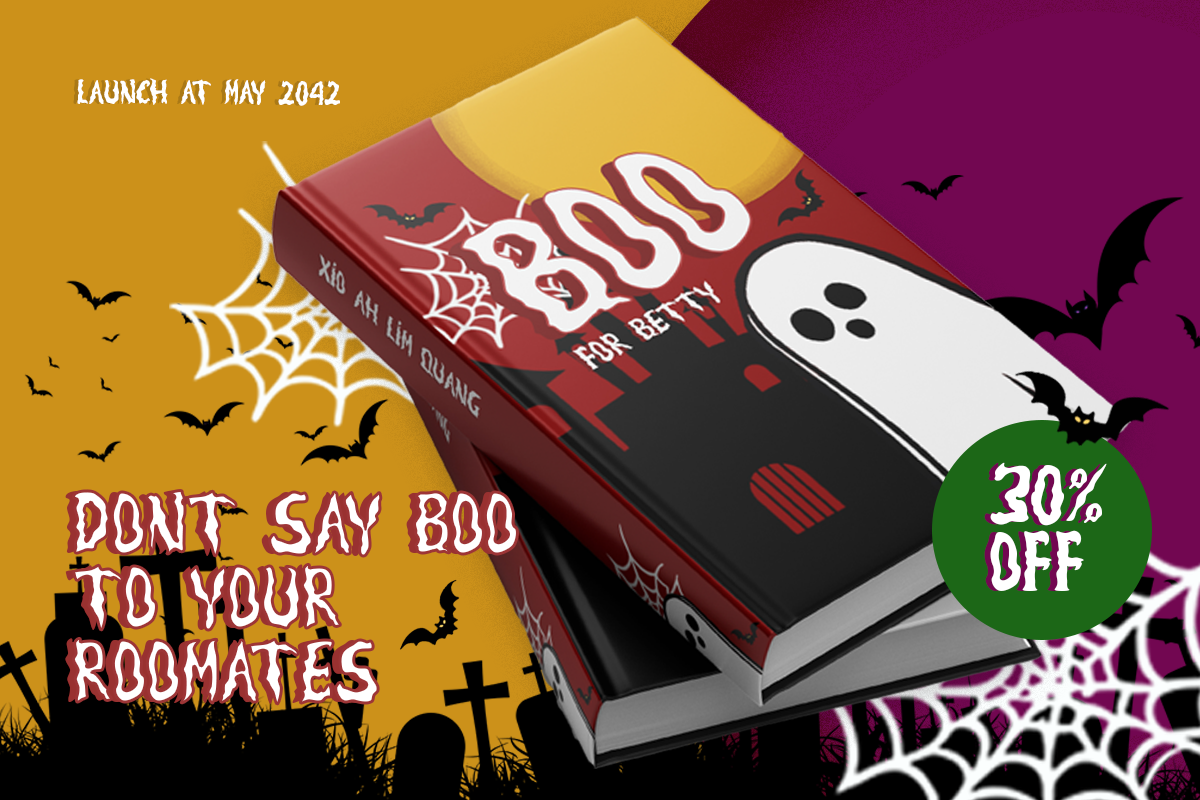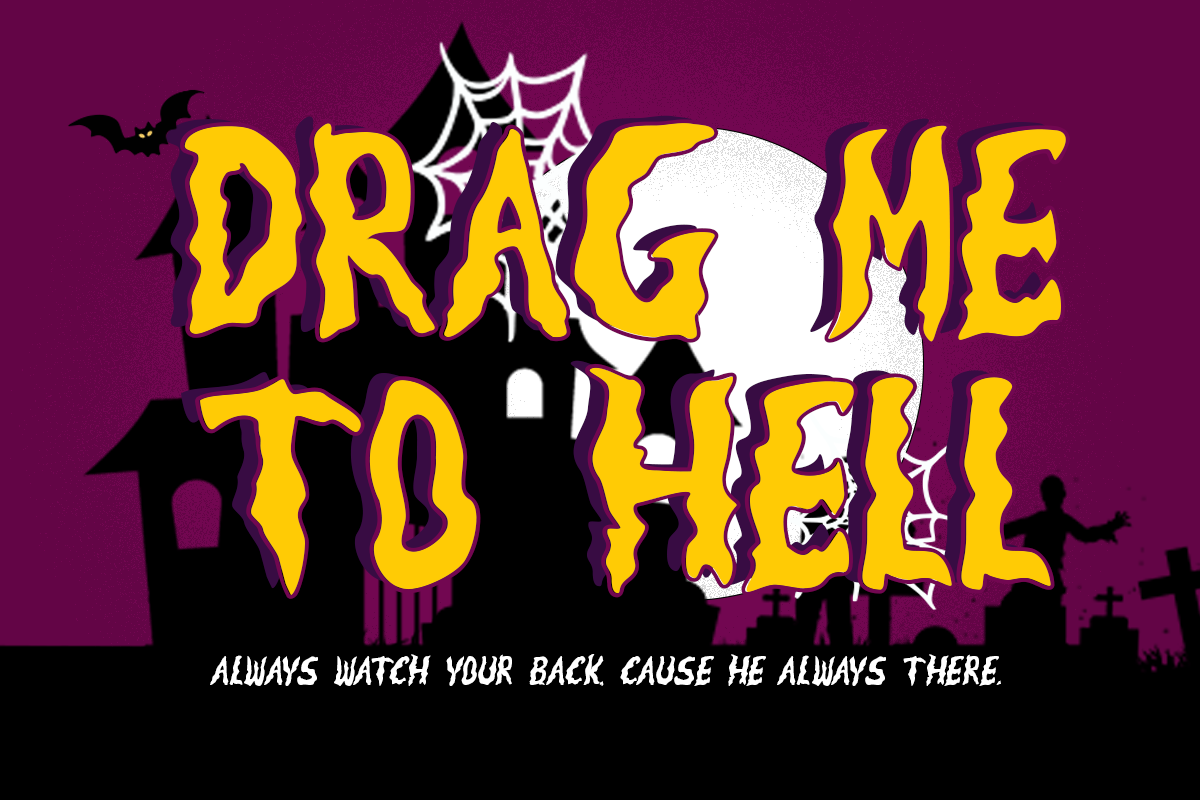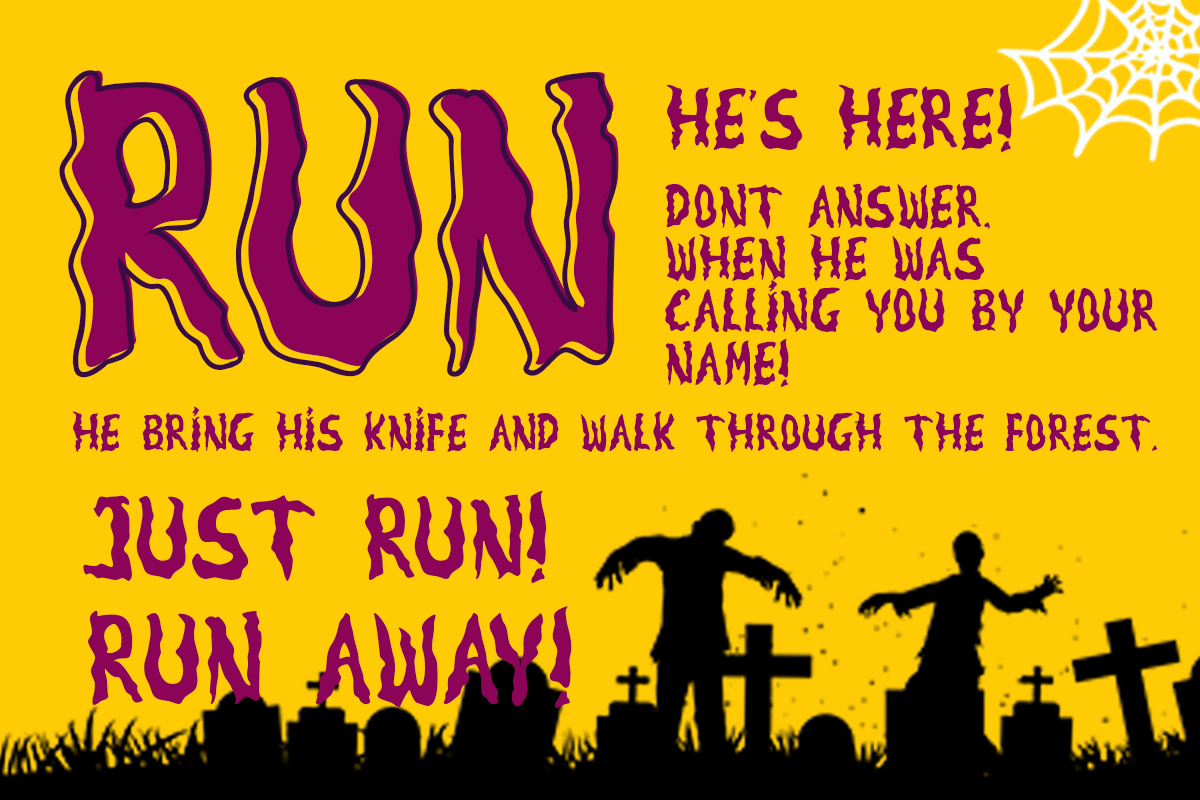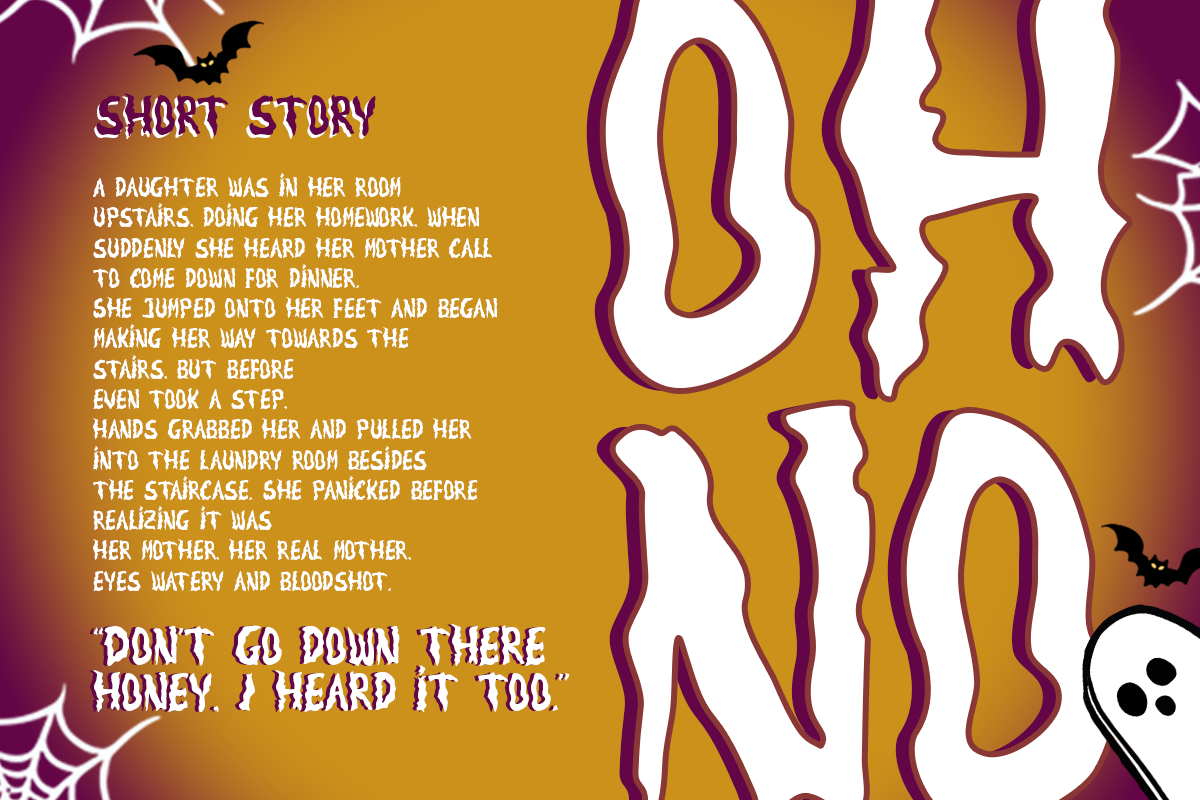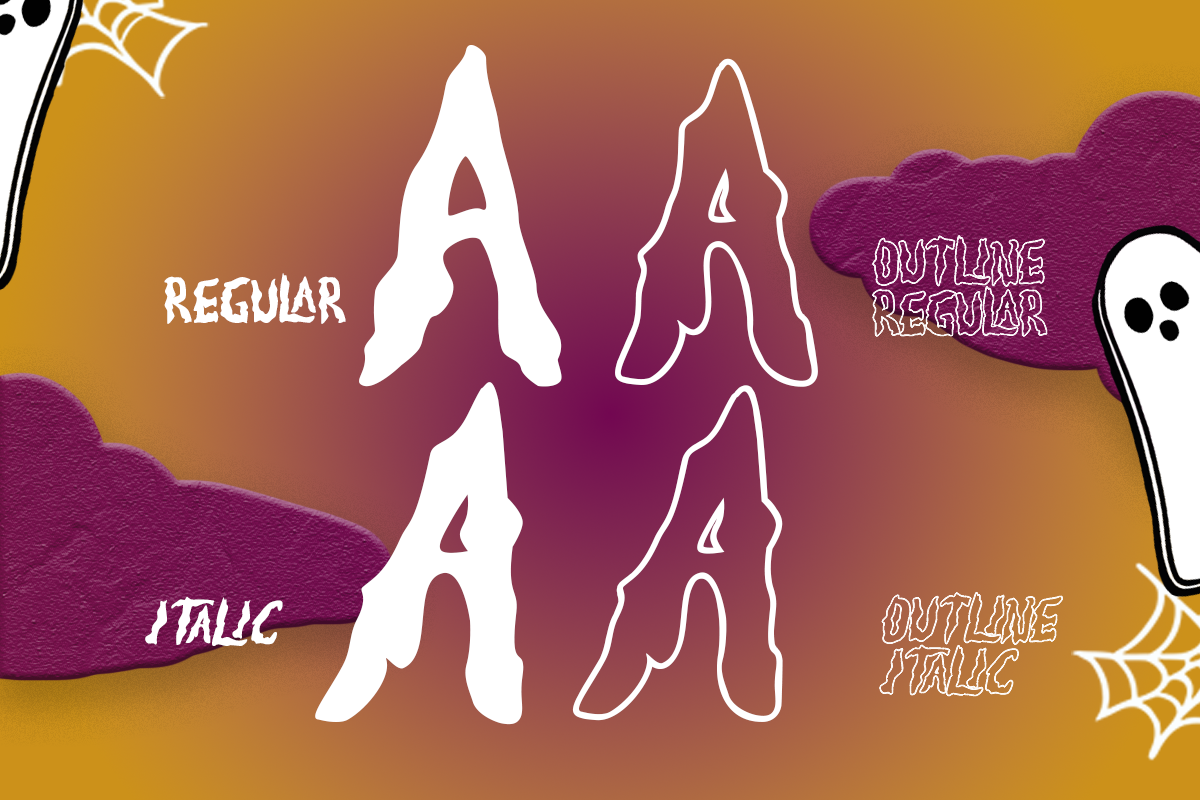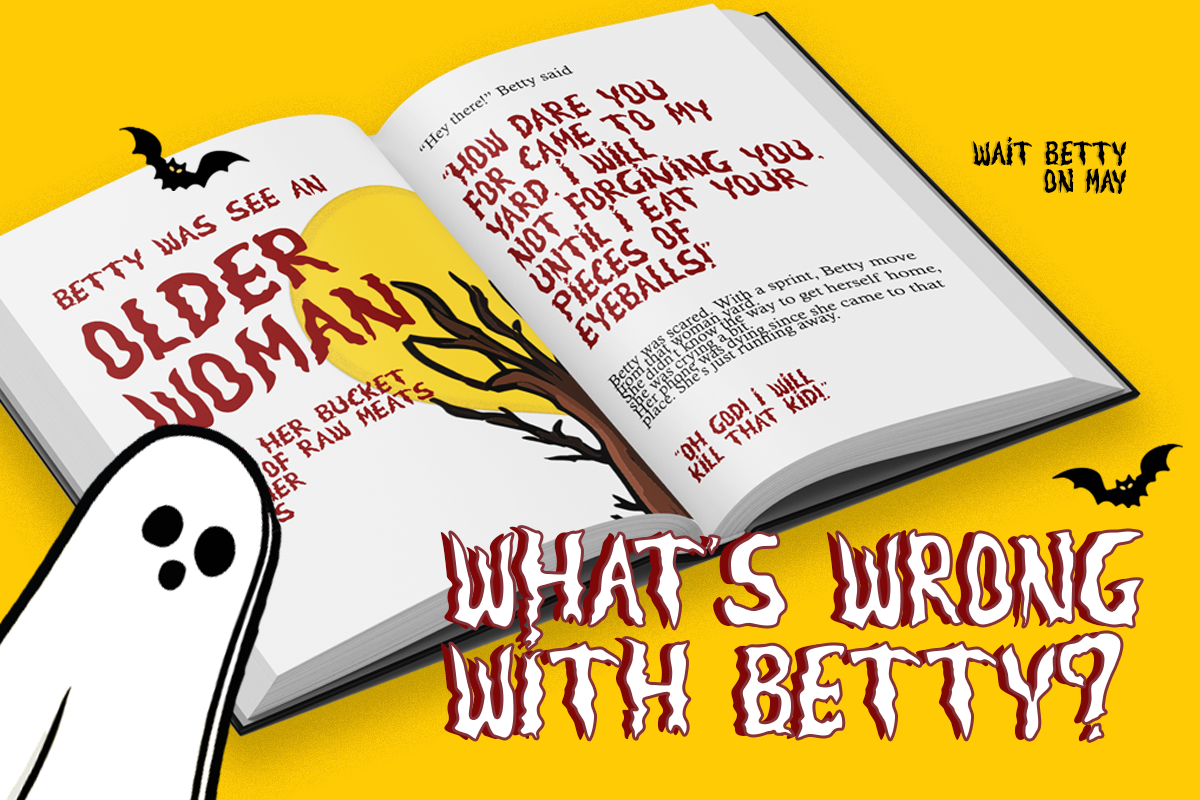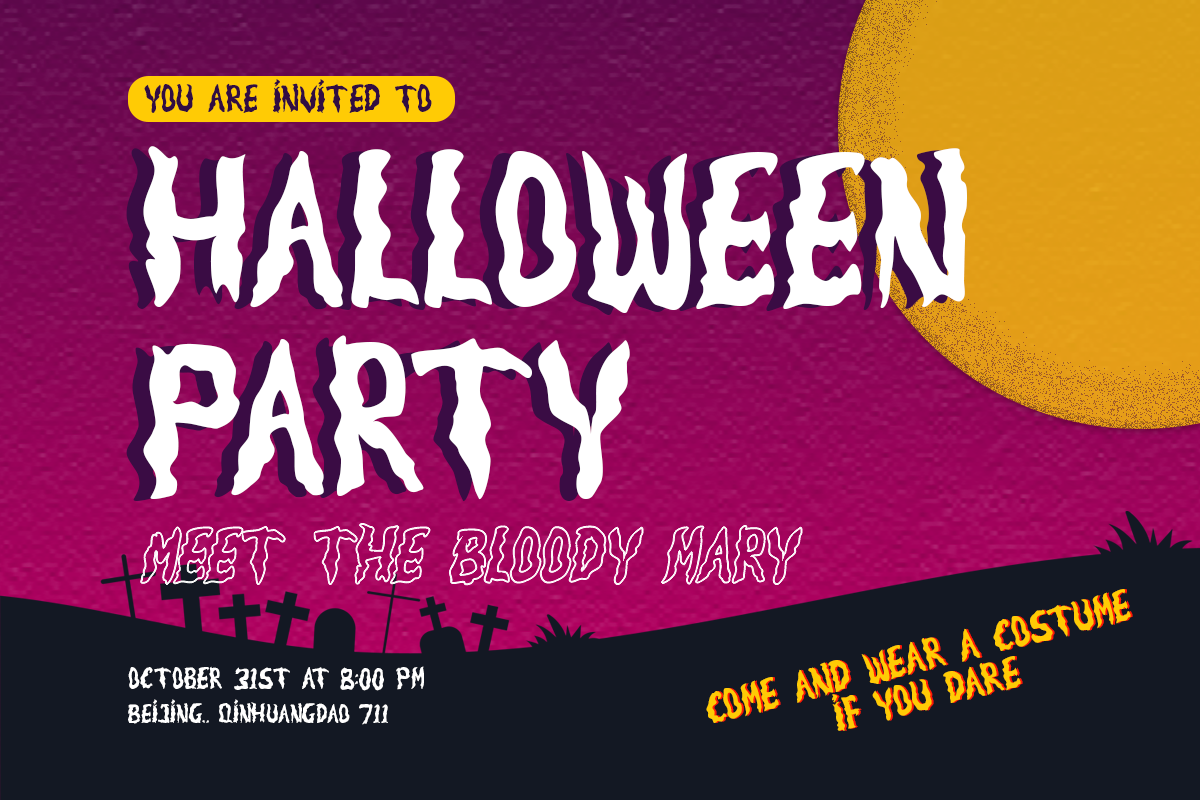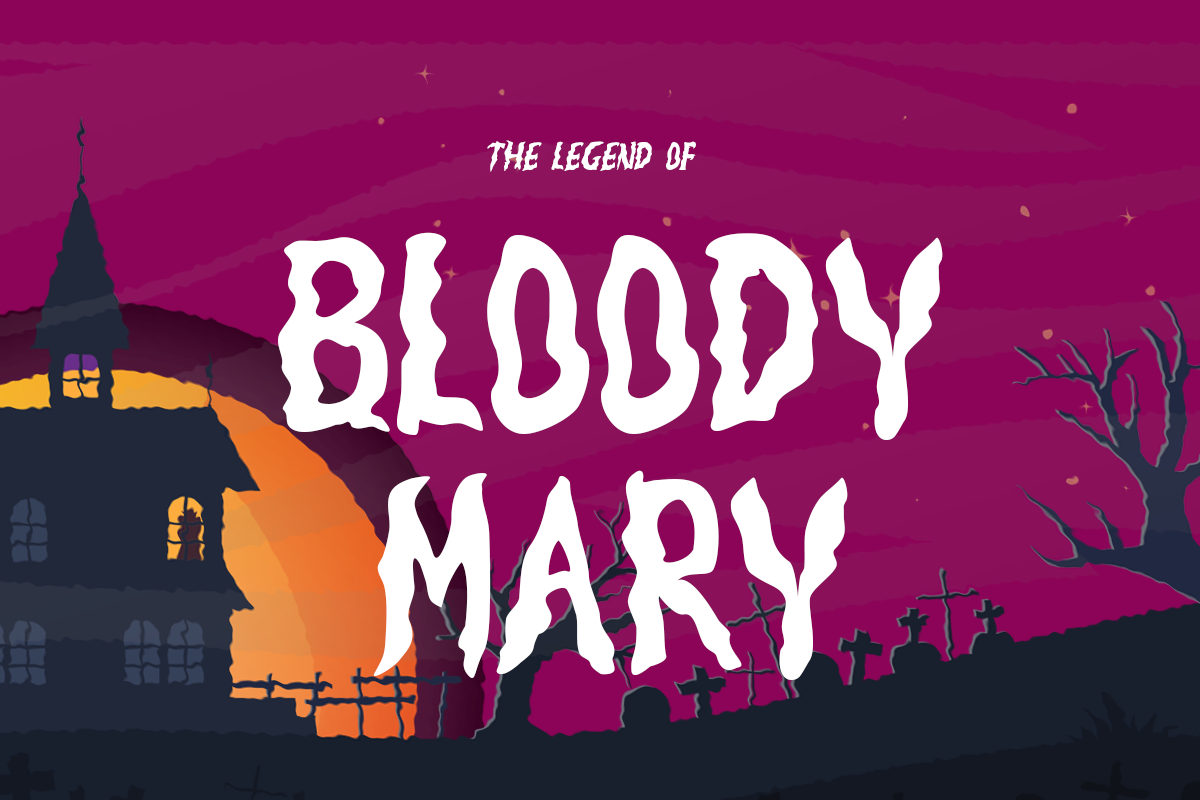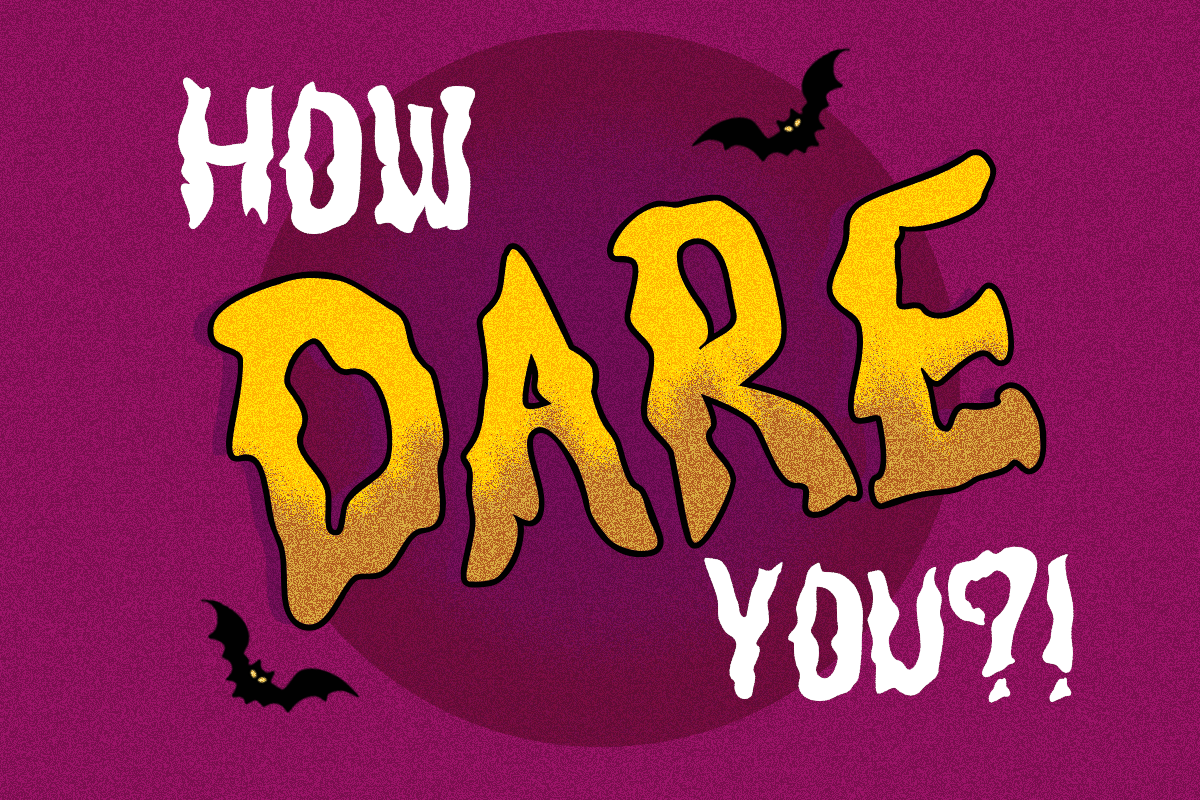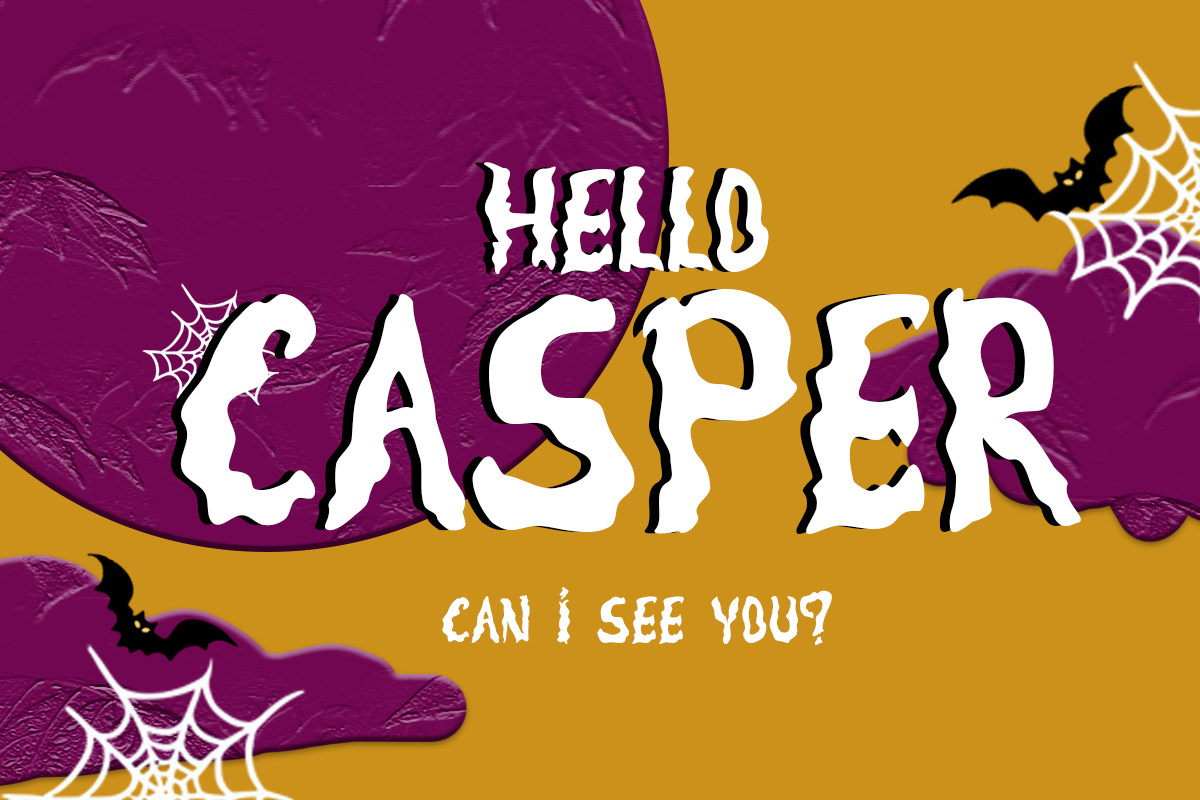
Weird Thorny - Spooky Horror Font
Introducing Weird Thorny - A Sinister, Hand-Drawn Horror Font
Step into the dark and twisted world of Weird Thorny, where every letter is laced with menace and a spine-chilling vibe. Perfect for bringing your most haunting designs to life, Weird Thorny is the ideal typeface for Halloween projects, creepy branding, and any design that demands a touch of the macabre.
Weird Thorny combines the unsettling feel of a twisted, thorn-covered landscape with the raw, hand-drawn style that adds a unique and eerie touch to your work. Whether you're designing for spooky social media posts, horror movie posters, gory logos, or haunted merchandise, Weird Thorny will ensure your designs leave a lasting impression.
- Regular, Outline, Italic, Outline Italic
- Unique letterforms